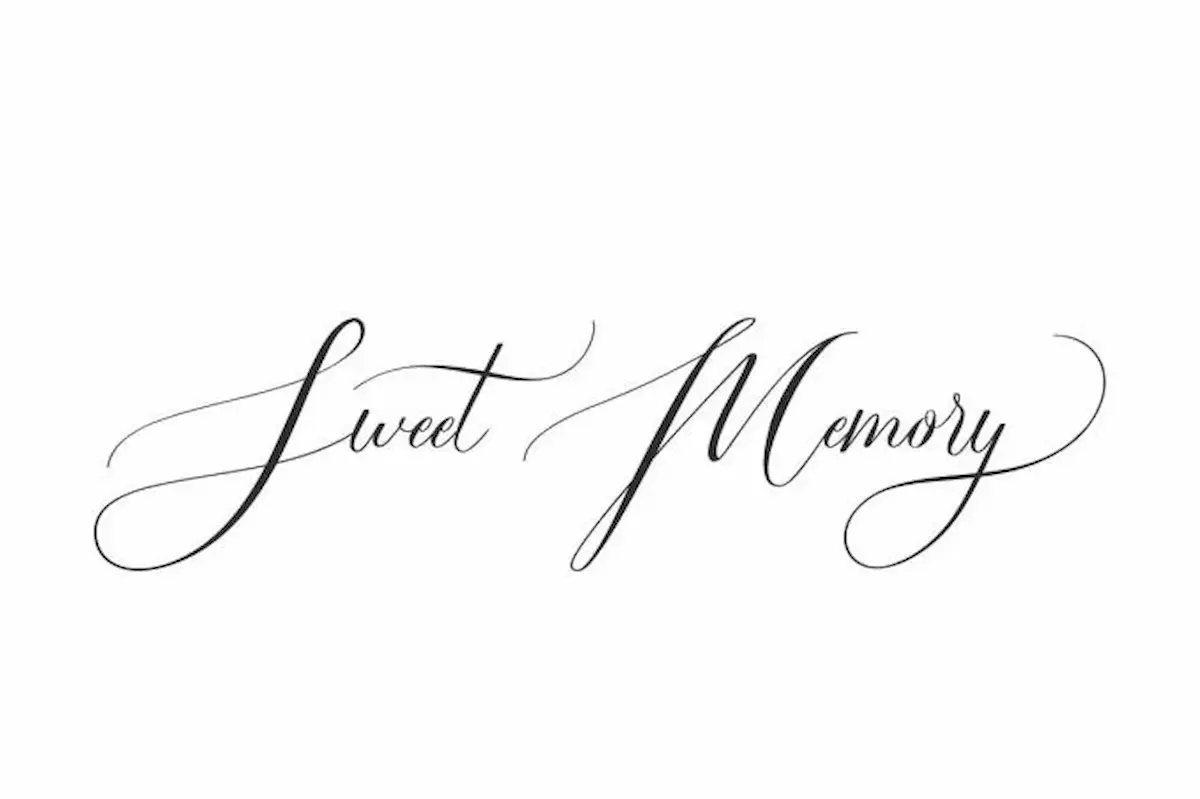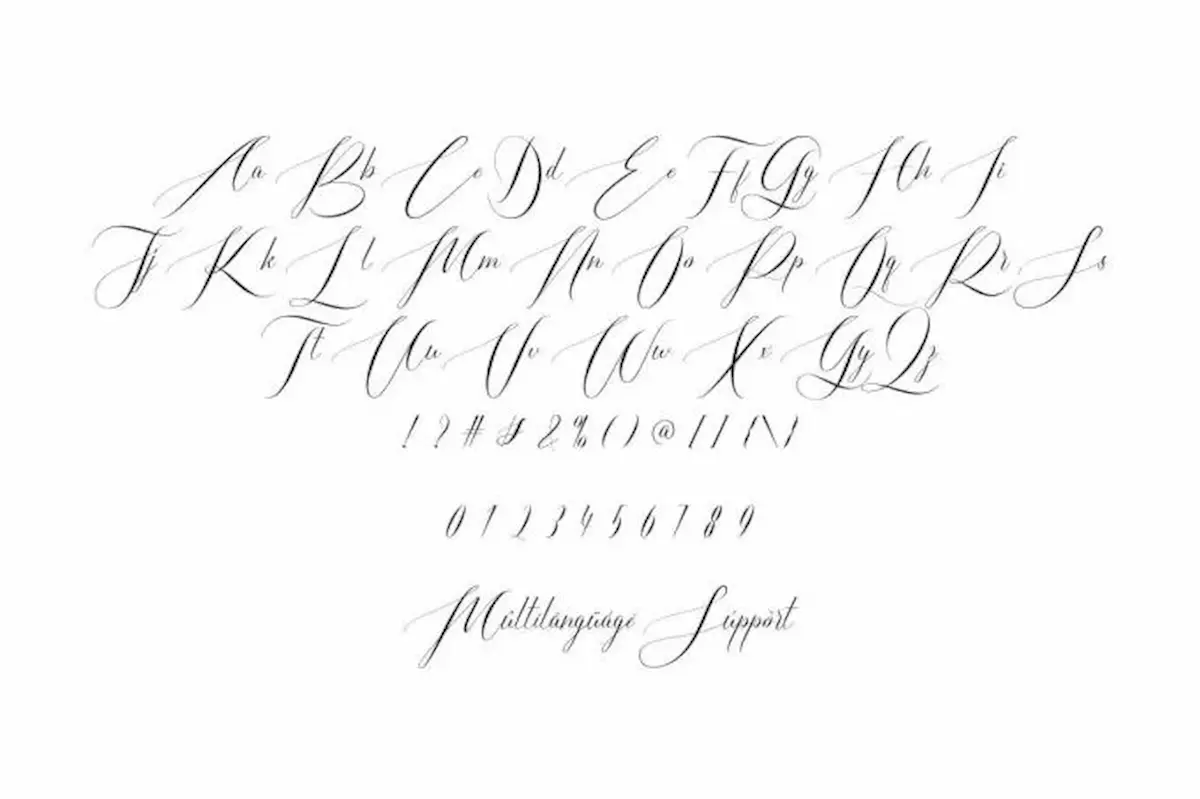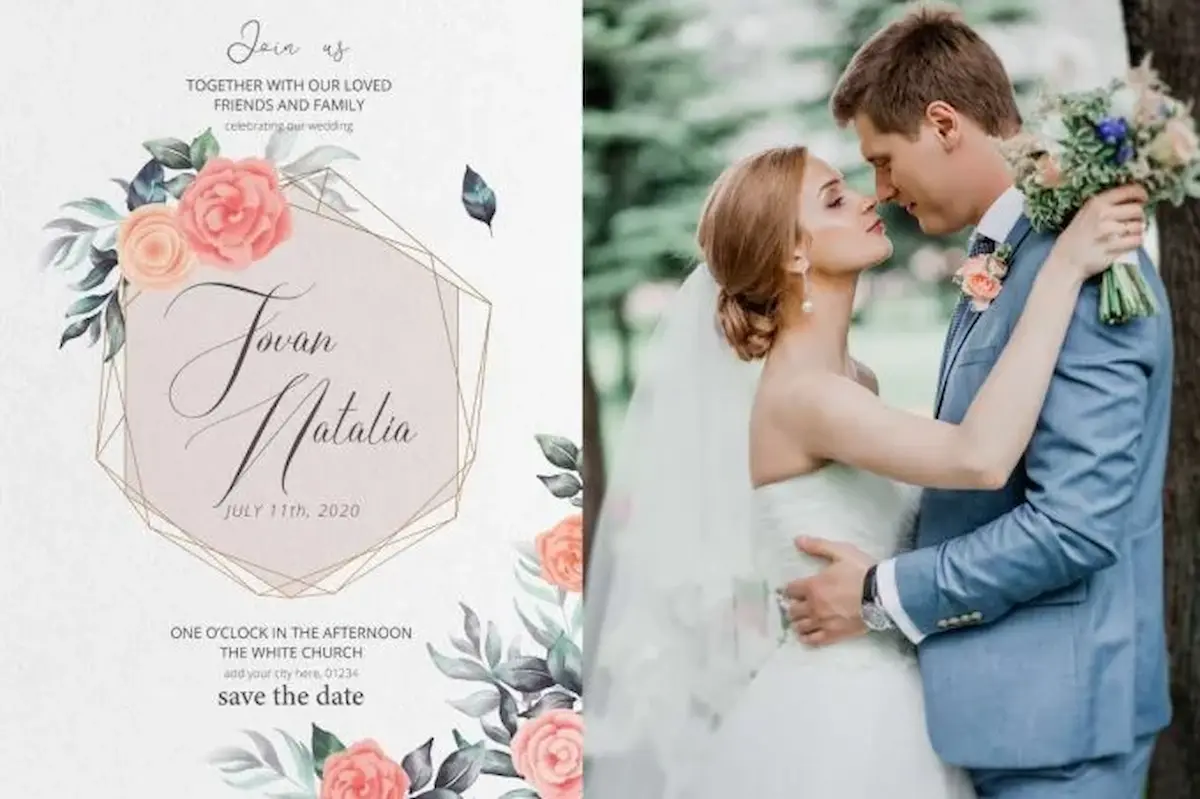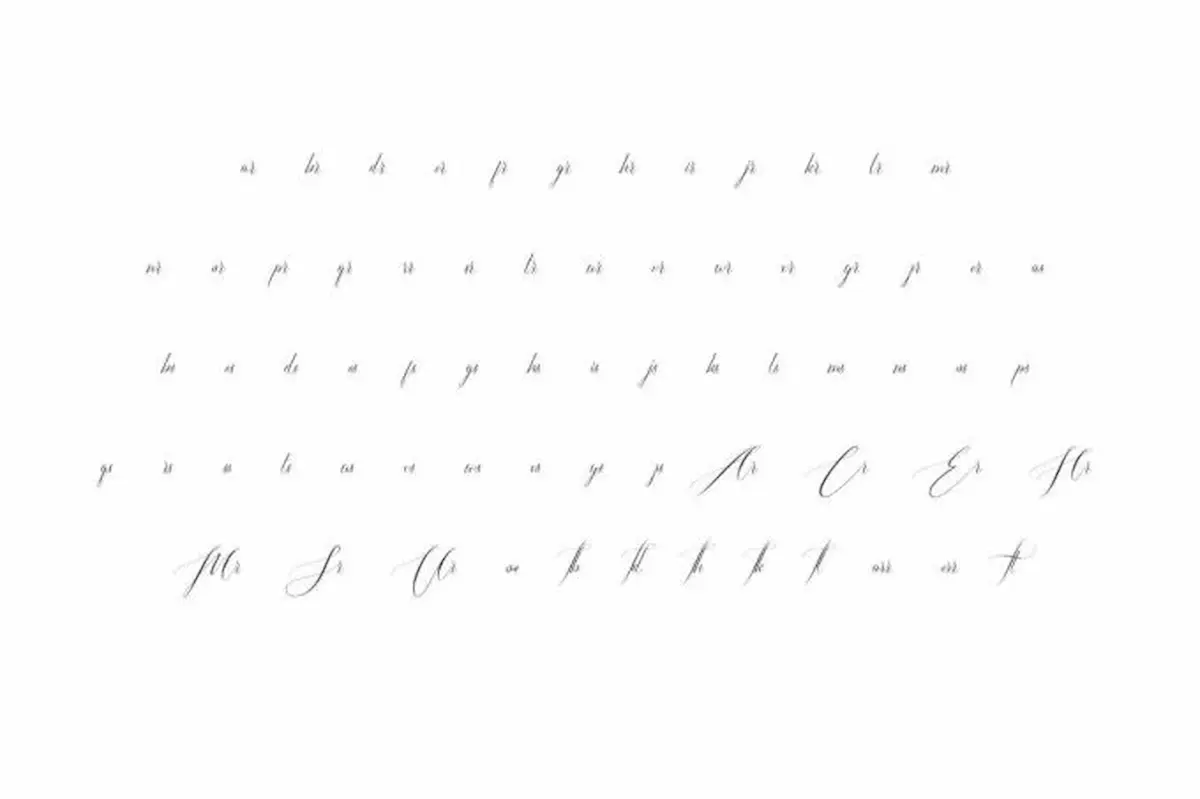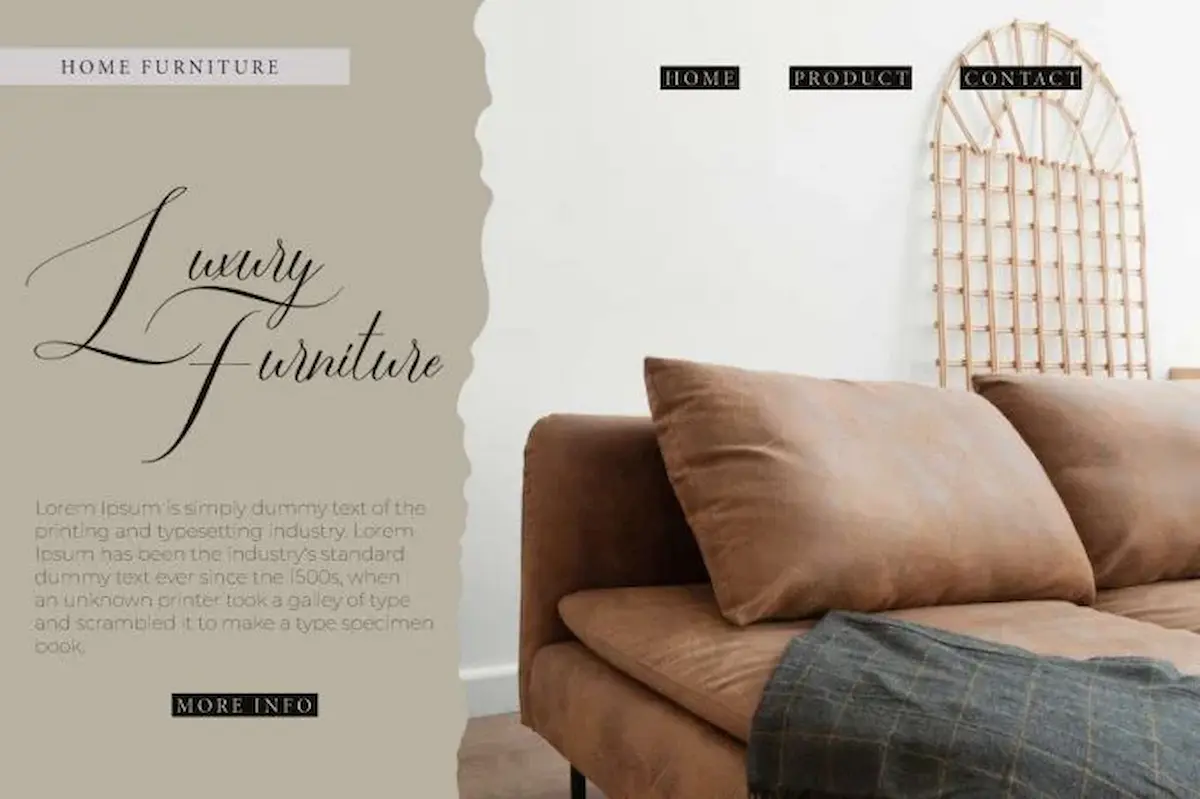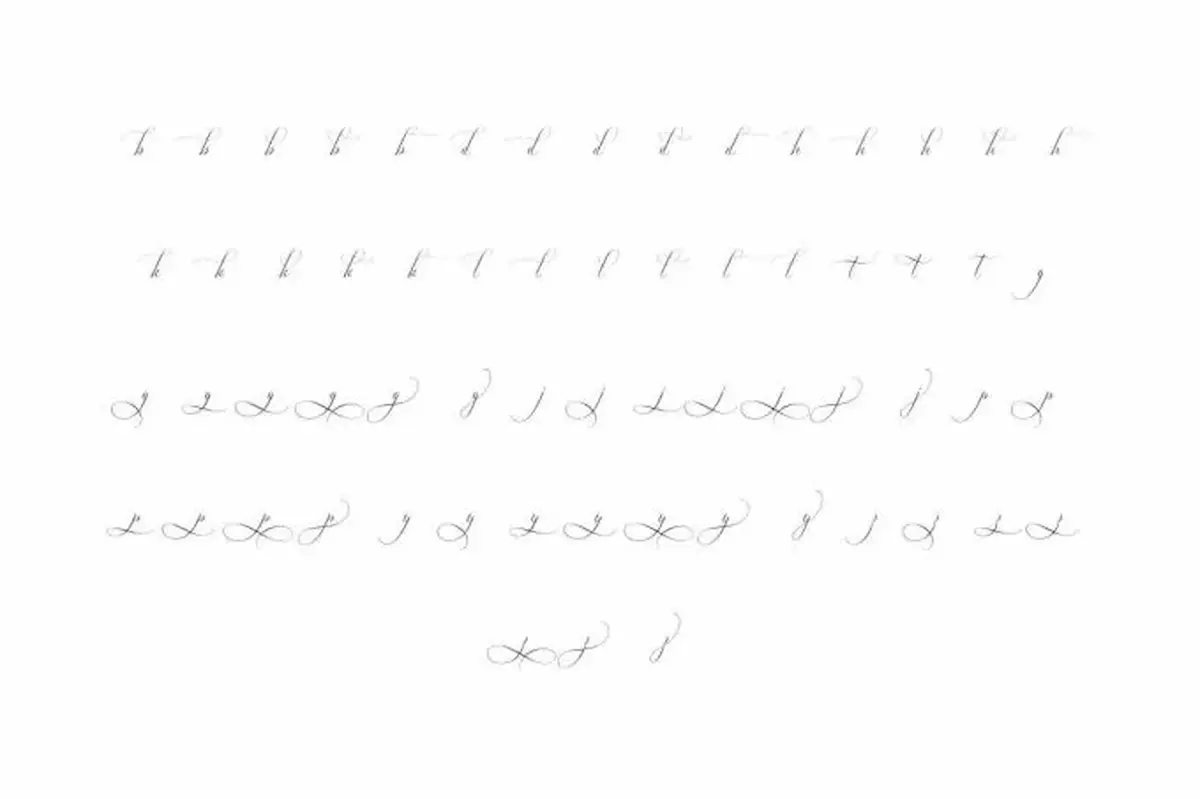
Sweet Memory Font is a feminine signature calligraphy font by NihStudio. This font will be great for fashion, weddings project etc.
Sweet Memory Font is an elegant script font that is inspired by wedding handwriting made by NihStudio. Please try the font by typing your own text below. Note that the test font below is a demo file, so some specimens/characters will not show up.
Sweet Memory Font will be great for any projects including : logo branding, lettering, products packaging, signage, social media post, stationery, etc. This font comes with a full set of characters, uppercase and lowercase letters, numbers and punctuations. Also complementary characters such as alternates, swoosh are made to blend with classy and exclusive shapes that make them stand out.